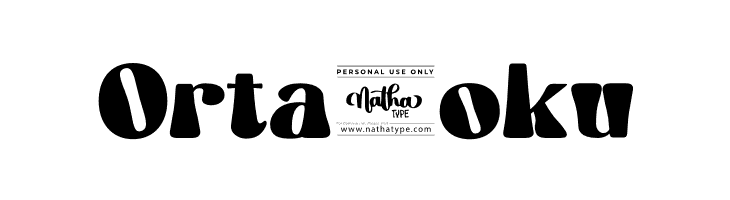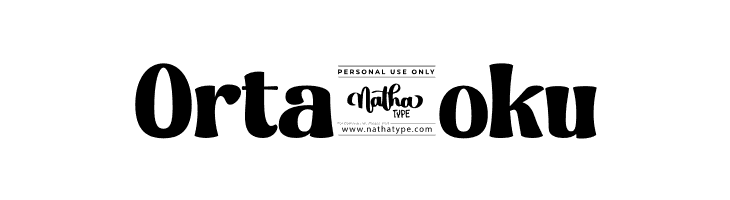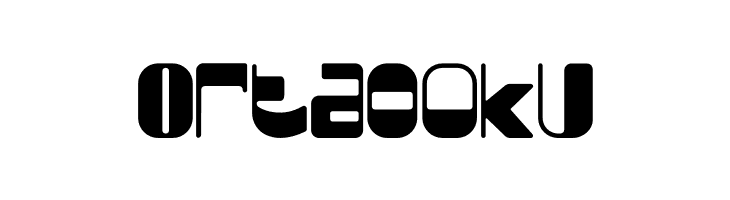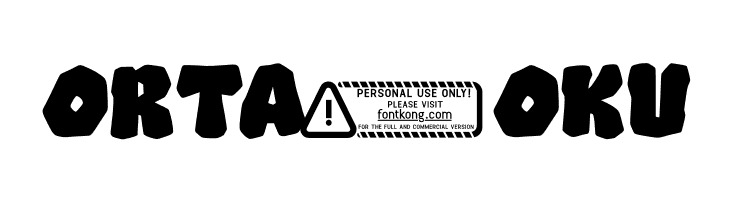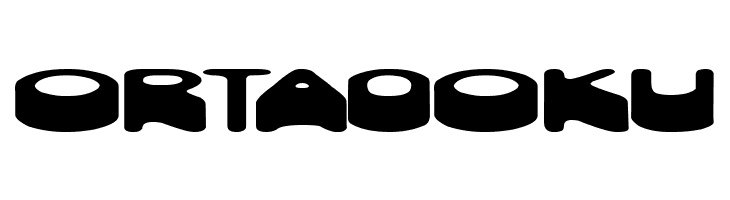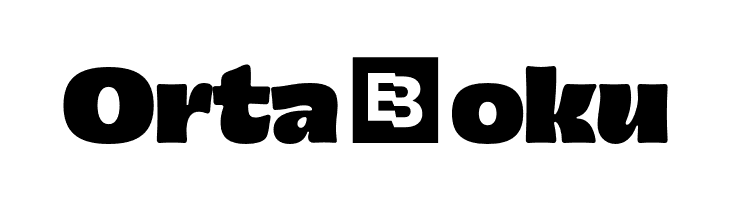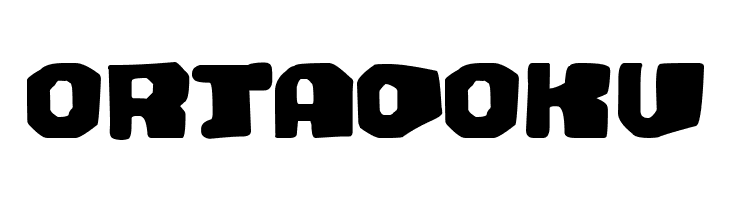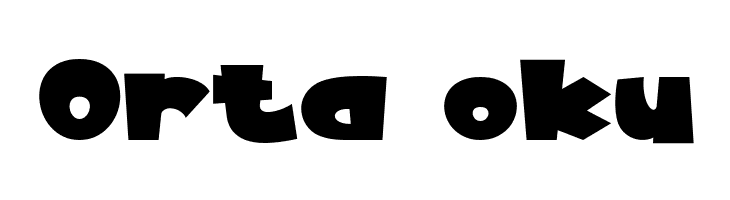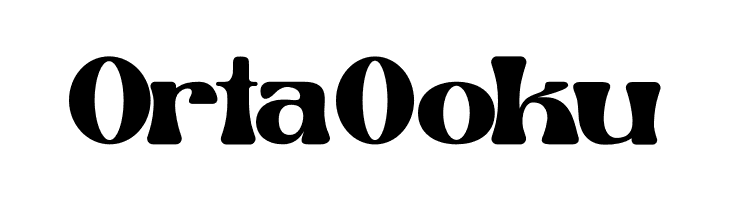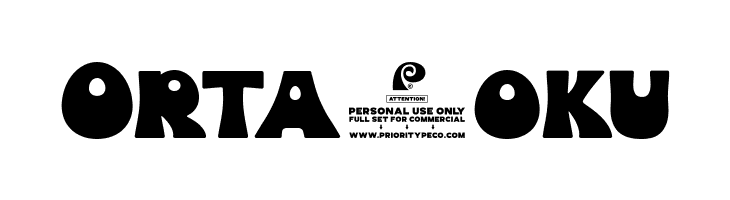
A bold, playful font with a retro flair and chunky, rounded characters.
A bold, playful font with a chunky, retro-inspired design.
A bold, playful font with rounded edges and a chunky appearance.
A bold, chunky font with a playful and informal style.
A bold, playful font with a three-dimensional, chunky style.
A bold, playful font with chunky, rounded characters.
A bold, chunky font with a playful, retro aesthetic.
A bold, playful font with chunky, exaggerated letterforms and a whimsical style.
A bold, playful font with a retro, chunky design.
A bold, playful font with chunky, dynamic characters.